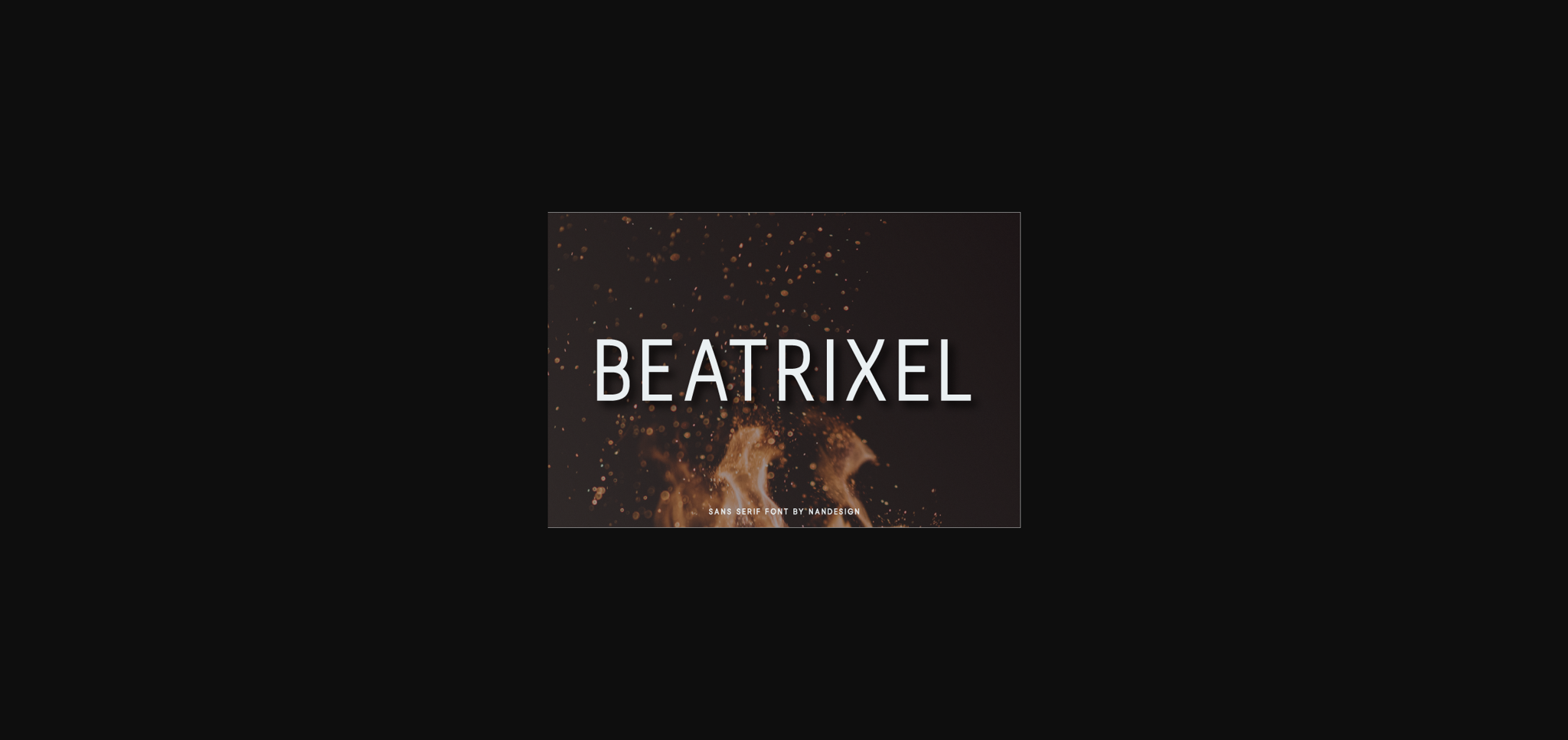
About Beatrixel Font
Beatrixel is a simple and elegant sans serif font. It can easily be matched to an incredibly large set of projects, so add it to your creative ideas and notice how it makes them come alive!